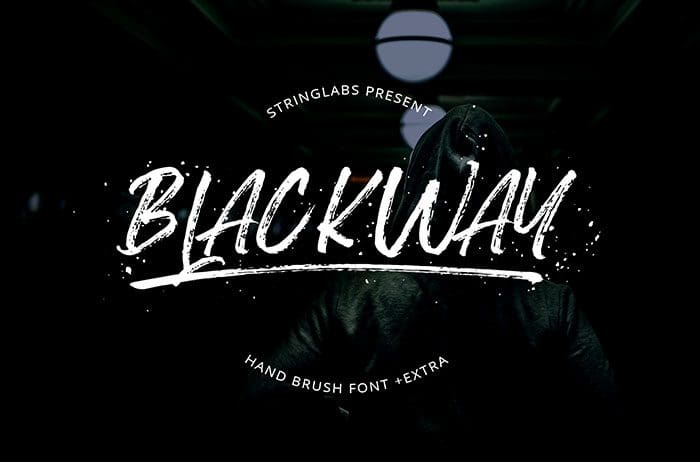
Free Blackway Handbrush Font
Blackway Handbrush Font
Free blackway handbrush font can be used for any variety of purposes, such as: Handbrush, Photography, Invitation, Packaging, Logo Type, Branding Design, Fashion and also can be used for Business purpose. This font is available only for personal use. Created this font by StringLabs. You can also search more free Brush Fonts. Thanks!